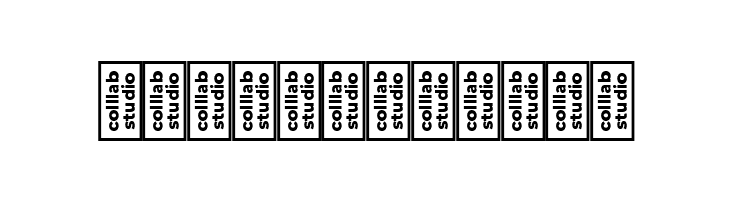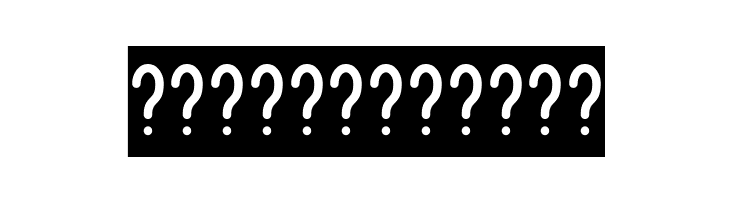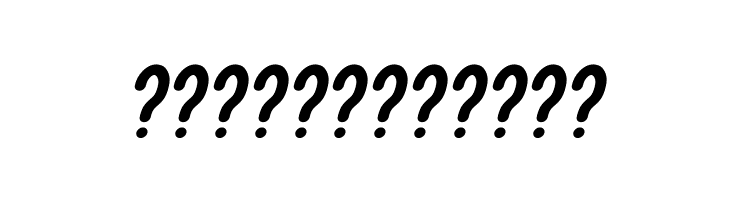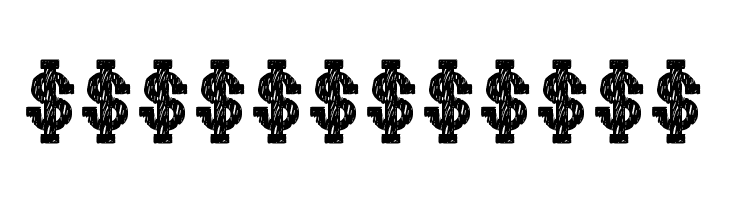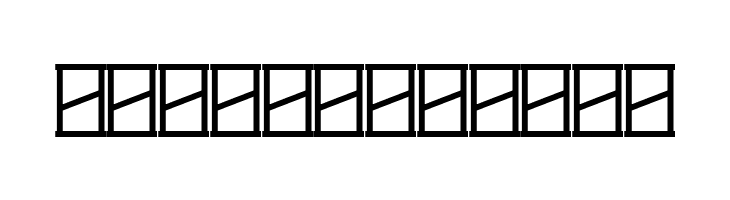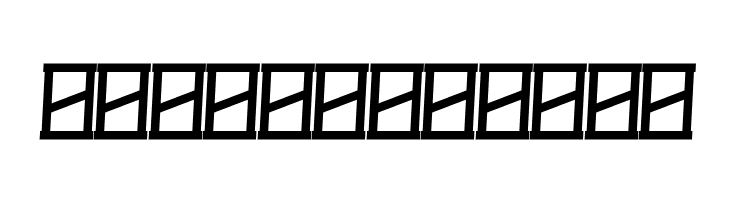
A geometric, triangular pixel-style font with a modern digital aesthetic.
A dynamic, hand-drawn script font with expressive strokes and a rough texture.
A playful, handwritten font with rounded, consistent strokes and a casual vibe.
A playful, bold, and rounded font with a whimsical, hand-drawn style.
A bold, expressive handwritten font with dynamic strokes and playful curves.
A bold, high-contrast font with a modern, geometric style.
A bold, geometric font with vertical line patterns for a dynamic look.
A bold, playful font with rounded, shadowed letters for a lively retro feel.
A bold, playful font with rounded strokes and high contrast, perfect for dynamic designs.
A bold, playful display font with retro cut-out details.
A playful, bold font with rounded edges and whimsical cutouts.
A bold, playful font with rounded edges and a lively style.
A bold, geometric font with a three-dimensional shadow effect.
A playful and whimsical font with rounded, flowing letterforms.
A modern font with geometric influences and elongated strokes.
A whimsical, book-inspired display font with illustrated, characterful glyphs.
A bold, italicized font with a distressed texture and dynamic slant.
A decorative series of abstract, fish-like shapes with bold, graphic patterns.
A modern, geometric font with bold uppercase and consistent lowercase letters.
A playful, comic-style font with bold, dynamic letterforms.
A playful, rounded font with smooth curves and consistent stroke width.
A bold, textured font with a rustic, handcrafted appearance.
A modern, rounded sans-serif font with a friendly and approachable style.
A playful, handwritten font with a casual and dynamic style.
A bold, italic font with smooth, rounded edges and a dynamic slant.
A modern sans-serif font with rounded edges and excellent readability.
Book and reading-themed decorative dingbat font.
A decorative collection of book-themed illustrations.
A playful, handwritten font with smooth, rounded edges and a casual style.
A dynamic, cursive script font with elegant, flowing strokes.
A bold, playful font with dynamic shapes and thick strokes.